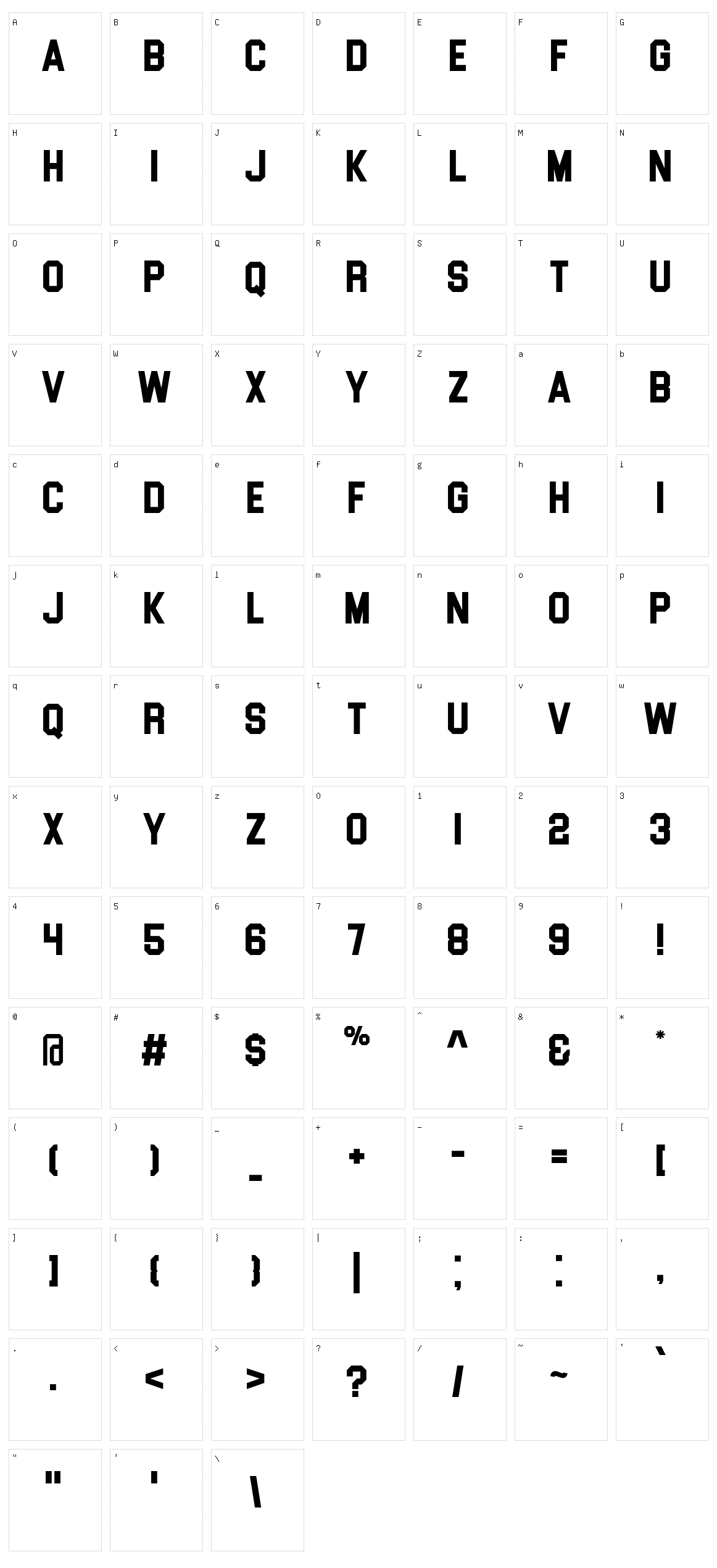
Who's up for a movie night? In a distant land far, far away VHS tapes were once king. Blockletter is a clean, basic sans serif based on the now defunct Blockbuster Video logo. It also resembles the Hollywood sign, military lettering, and type found on collegiate apparel. This is a complete overhaul
based on a font I designed years ago. Blockletter features only uppercase characters and basic punctuation but contains European accents, diacritics, and kerning. The regular version is included for personal use. The other 3 are available with purchase of a commercial license. If you don't require